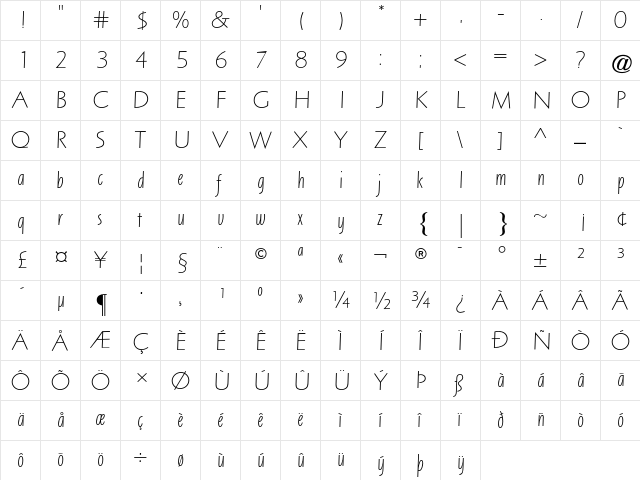
Arta AT Light Italic Font Preview
Design Context for Arta AT Light Typeface
Arta AT Light offers clean, dependable letterforms without strong stylistic allegiance, making it a practical choice for designers who need flexibility. The dynamic lean of this cut emphasises speed and emphasis in any layout. Its slender proportions lend an understated elegance to any composition.
Pro Tip: Try Arta AT Light for annotation and caption copy alongside an upright companion — the contrast in angle creates a dynamic but ordered typographic system.